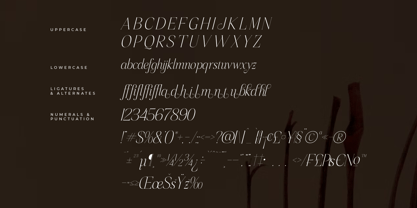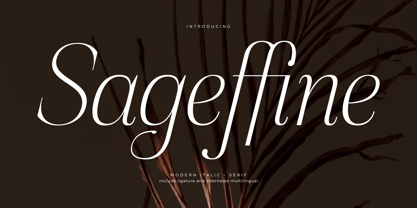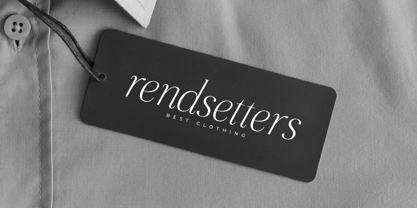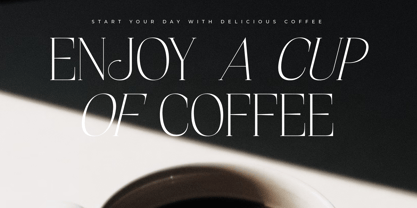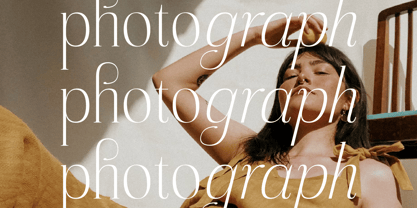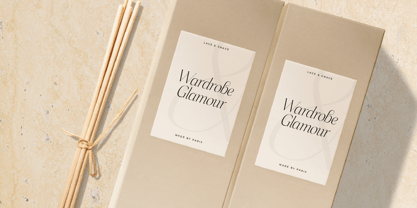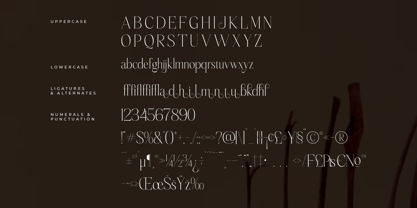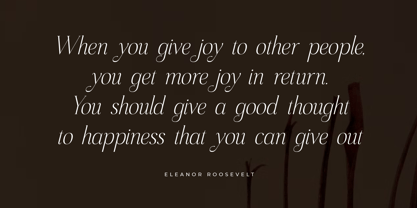
Sageffine
The Sageffine Font Family was designed by Heru Utama Putra and published by Letterena Studios. Sageffine contains 2 styles and family package options. More about this family
Proudly present Sageffine Typeface.
A serif modern and classic typeface that has its own unique style & modern look.
This typeface is perfect for an elegant & luxury logo, book or movie title design, fashion brand, magazine, clothes, lettering, quotes, and so much more.